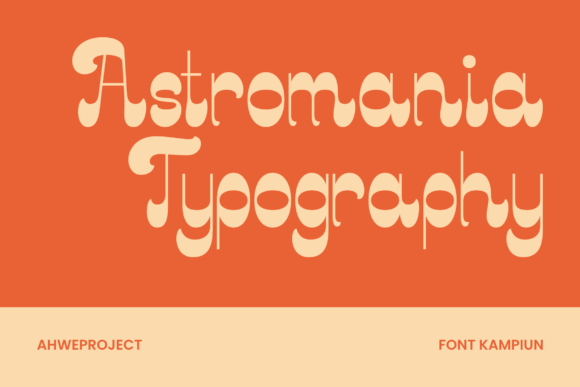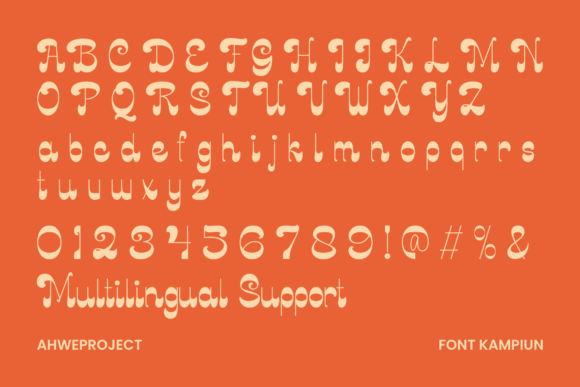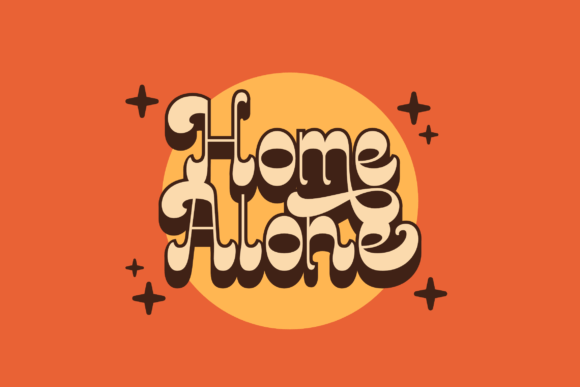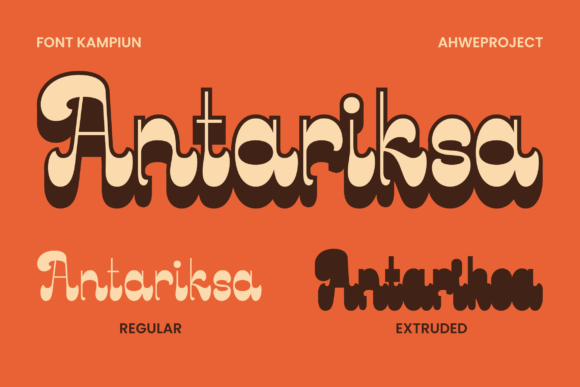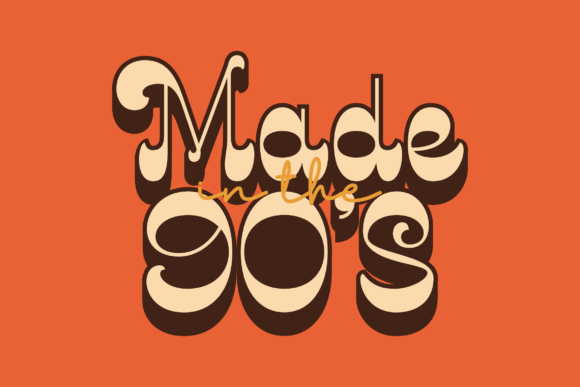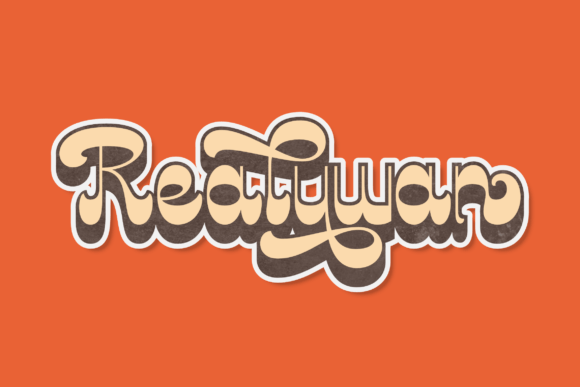
Introduction to Kampiun Font
Introducing the delightful Kampiun font.
With its captivating reverse retro script style, Kampiun brings a sense of groovy nostalgia and smooth elegance No matter the topic, this font will be an incredible asset to your fontsโ library, as it has the potential to elevate any creation.
Key Features of Kampiun Font